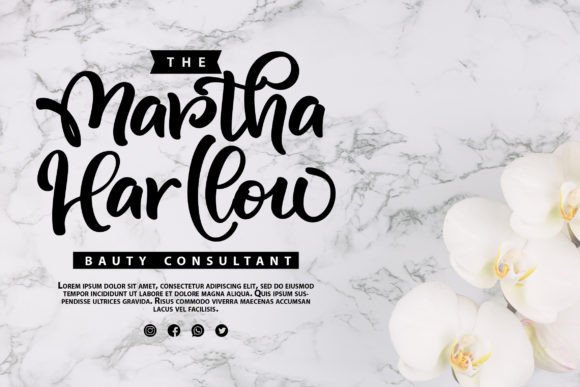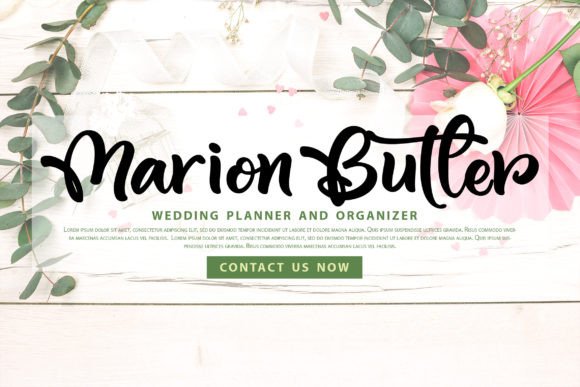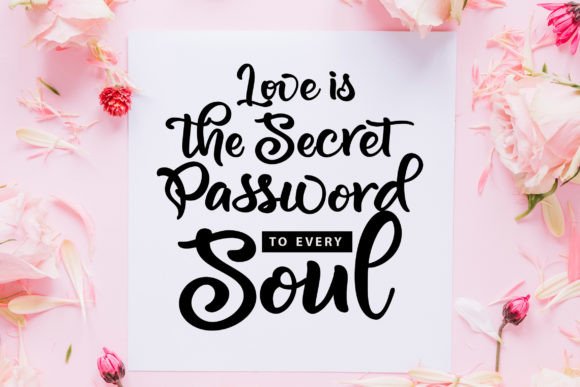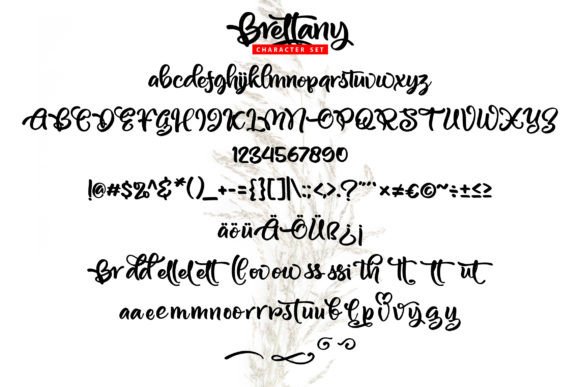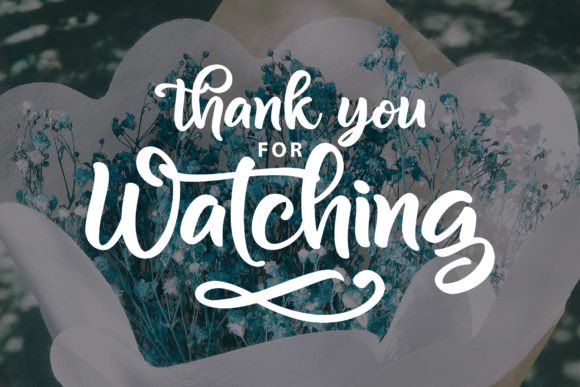
Brettany Font: Elevate Your Designs with Elegant Handwritten Style
Are you looking for a font that adds a touch of elegance and sophistication to your designs? Look no further than Brettany Font, a stunning handwritten font with a calligraphy style that’s perfect for a wide range of creative projects. In this article, we’ll dive into the features and benefits of Brettany Font, and explore how it can elevate your designs and take your creativity to the next level.
What is Brettany Font?
Brettany Font is a beautifully crafted handwritten font that boasts a natural, flowing style reminiscent of traditional calligraphy. Its elegant lines, curves, and swashes make it an ideal choice for designers and crafters seeking to add a touch of sophistication to their work. Whether you’re creating invitations, greeting cards, branding materials, business cards, quotes, posters, or more, Brettany Font is sure to impress.
Key Features of Brettany Font
- Naturally Flowing Style: Brettany Font features a beautiful, organic style that’s perfect for creating elegant and sophisticated designs.
- Calligraphy Style: With its calligraphy-inspired lines and curves, Brettany Font adds a touch of luxury and refinement to any design.
- Versatile: Brettany Font is perfect for a wide range of creative projects, from invitations and greeting cards to branding materials, business cards, quotes, posters, and more.
Benefits of Using Brettany Font
So why choose Brettany Font for your designs? Here are just a few benefits of using this stunning font:
- Elegance and Sophistication: Brettany Font adds a touch of elegance and sophistication to any design, making it perfect for high-end branding, luxury products, and special occasions.
- Time-Saving: Brettany Font’s extensive range of glyphs and swashes saves designers time and effort, allowing them to focus on the creative aspects of their work.
- Unique and Creative: Brettany Font’s unique and creative style sets it apart from other fonts, making it perfect for designers seeking to create something truly original.
Who Can Benefit from Brettany Font?
Brettany Font is perfect for a wide range of designers and crafters, including:
- Graphic Designers: Brettany Font is ideal for graphic designers seeking to create elegant and sophisticated branding materials, business cards, and marketing collateral.
- Stationery Designers: With its beautiful handwritten style, Brettany Font is perfect for stationery designers creating invitations, greeting cards, and other paper products.
- Crafters: Brettany Font is also great for crafters who enjoy making DIY projects, such as handmade cards, scrapbooking, and other paper crafts.
Tips for Using Brettany Font
Here are a few tips for getting the most out of Brettany Font:
- Experiment with Different Sizes and Colors: Brettany Font looks great in a range of sizes and colors, so don’t be afraid to experiment and find the perfect combination for your design.
- Pair with Other Fonts: Brettany Font pairs beautifully with other fonts, so try combining it with a sans-serif font for a striking contrast.
- Use Swashes and Glyphs: Take advantage of Brettany Font’s extensive range of swashes and glyphs to add extra elegance and sophistication to your designs.
Brettany Font is a stunning handwritten font with a calligraphy style that’s perfect for designers and crafters seeking to add a touch of elegance and sophistication to their work. With its PUA encoding, naturally flowing style, and extensive range of glyphs and swashes, Brettany Font is an ideal choice for a wide range of creative projects. Whether you’re a graphic designer, stationery designer, or crafter, Brettany Font is sure to elevate your designs and take your creativity to the next level.